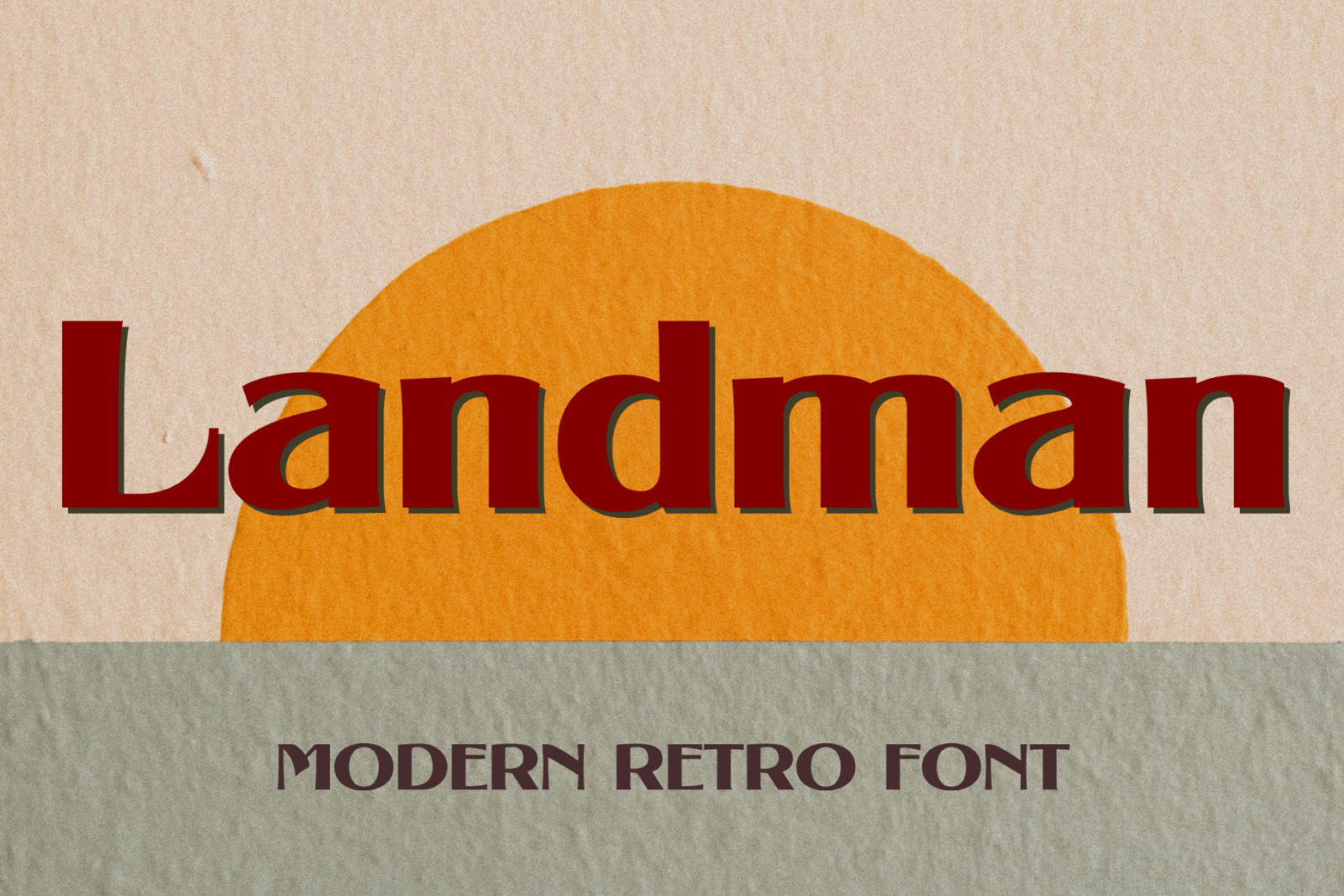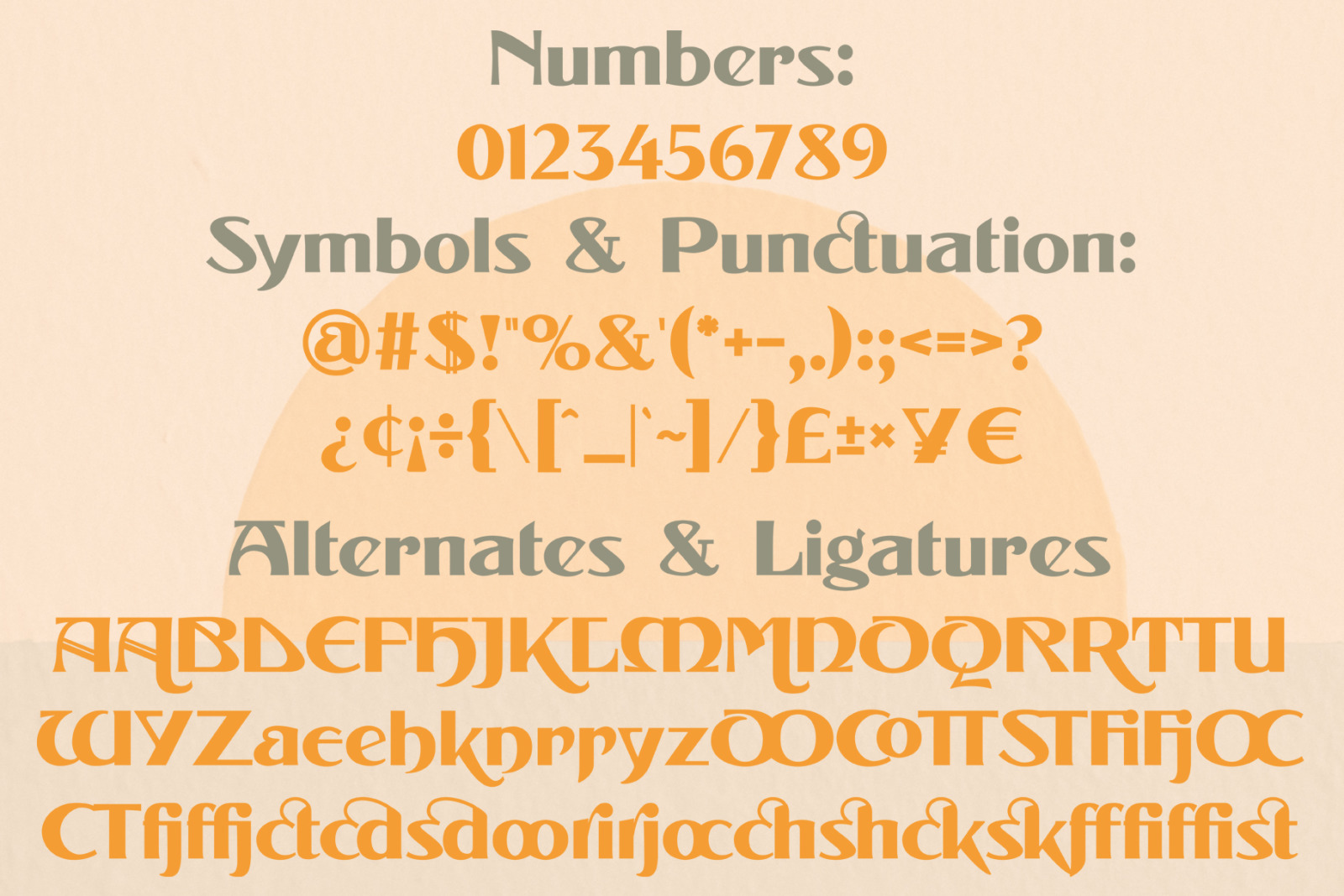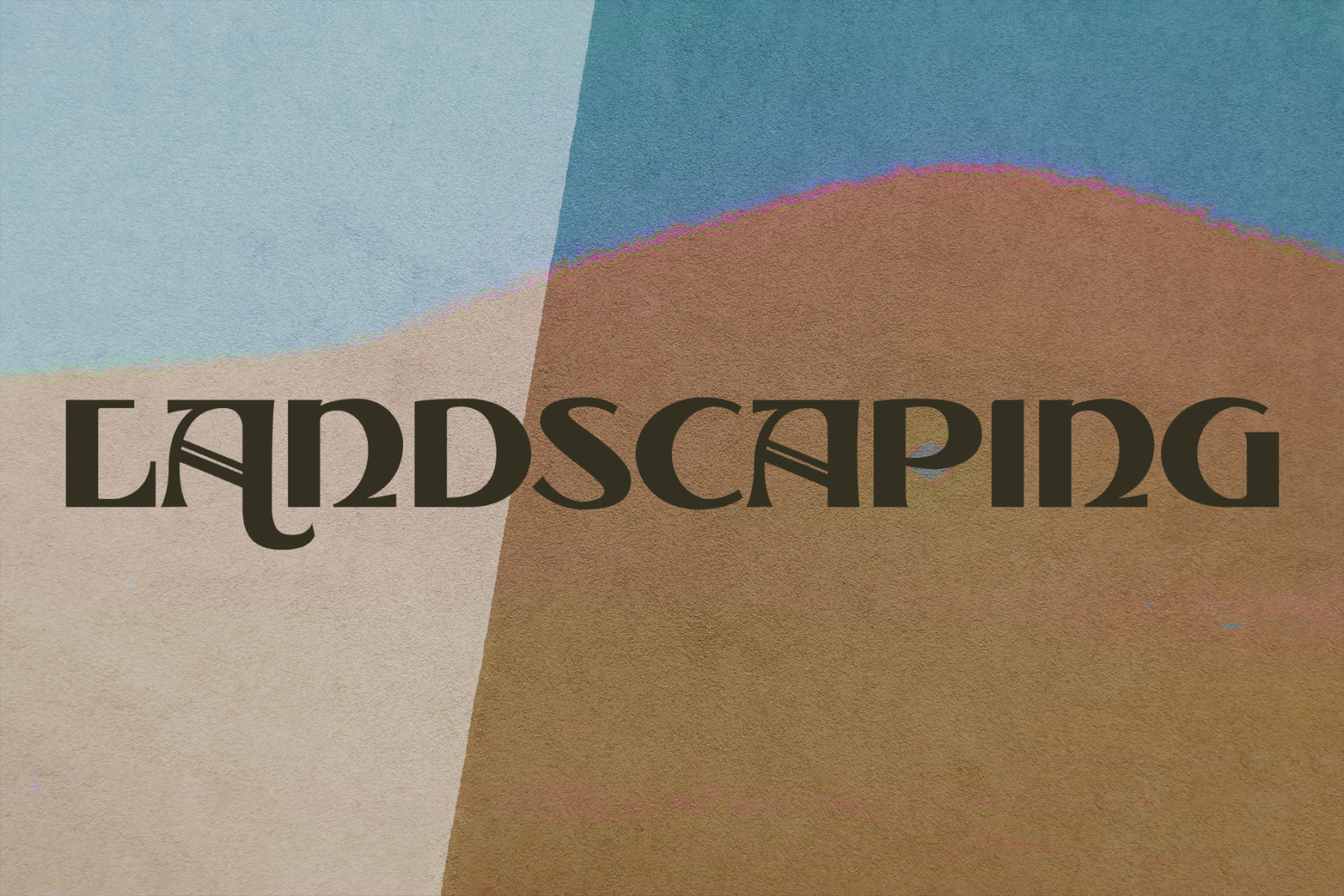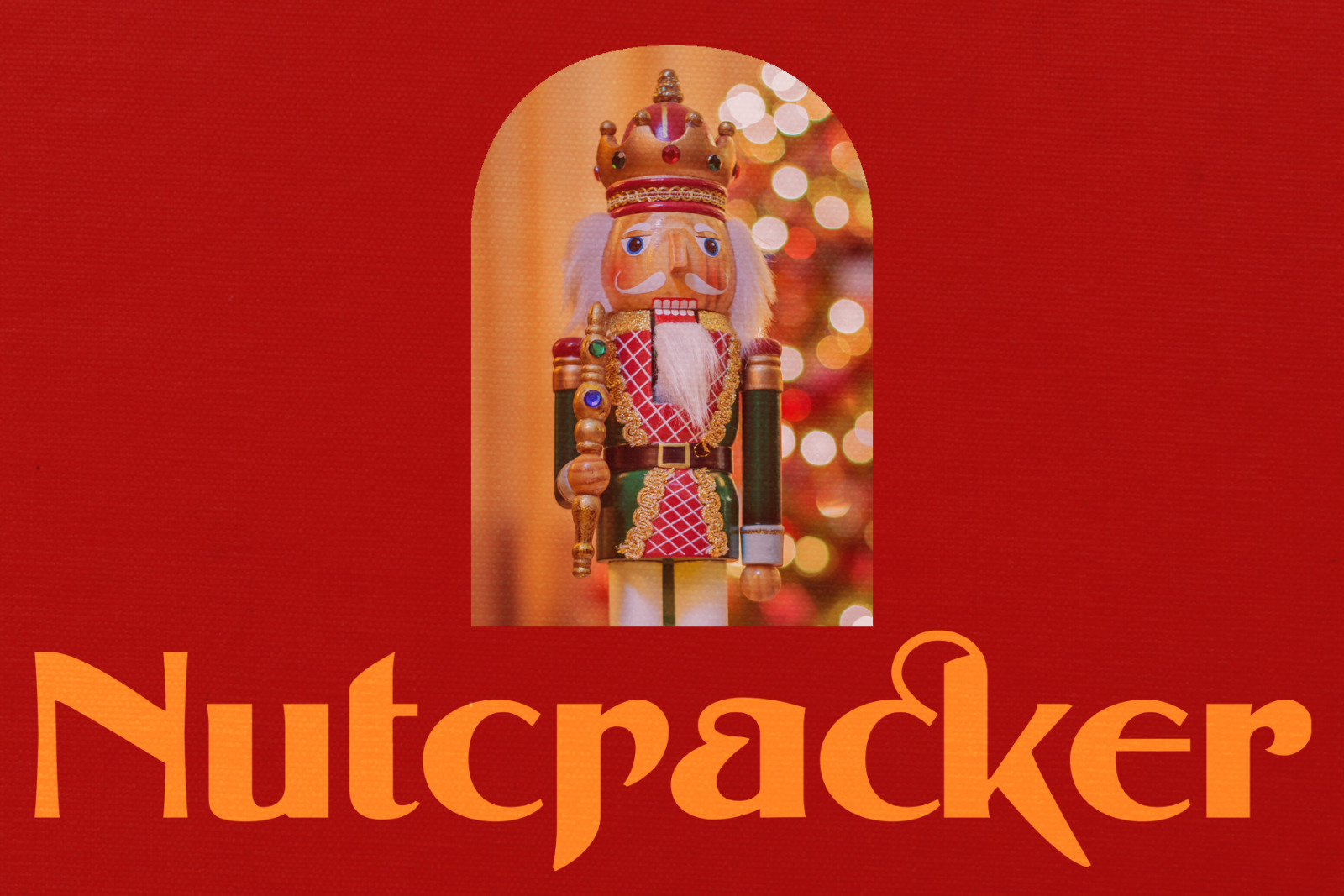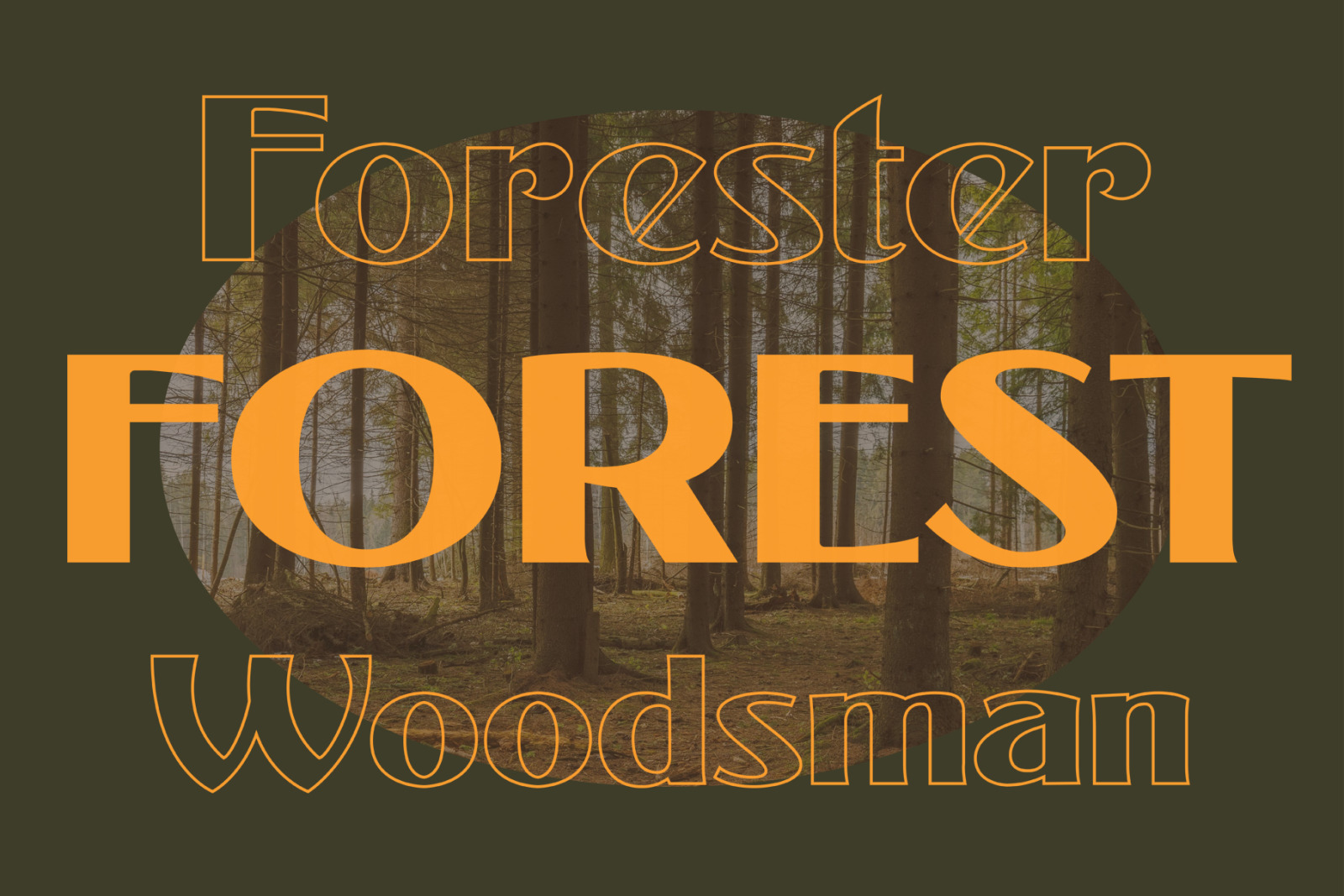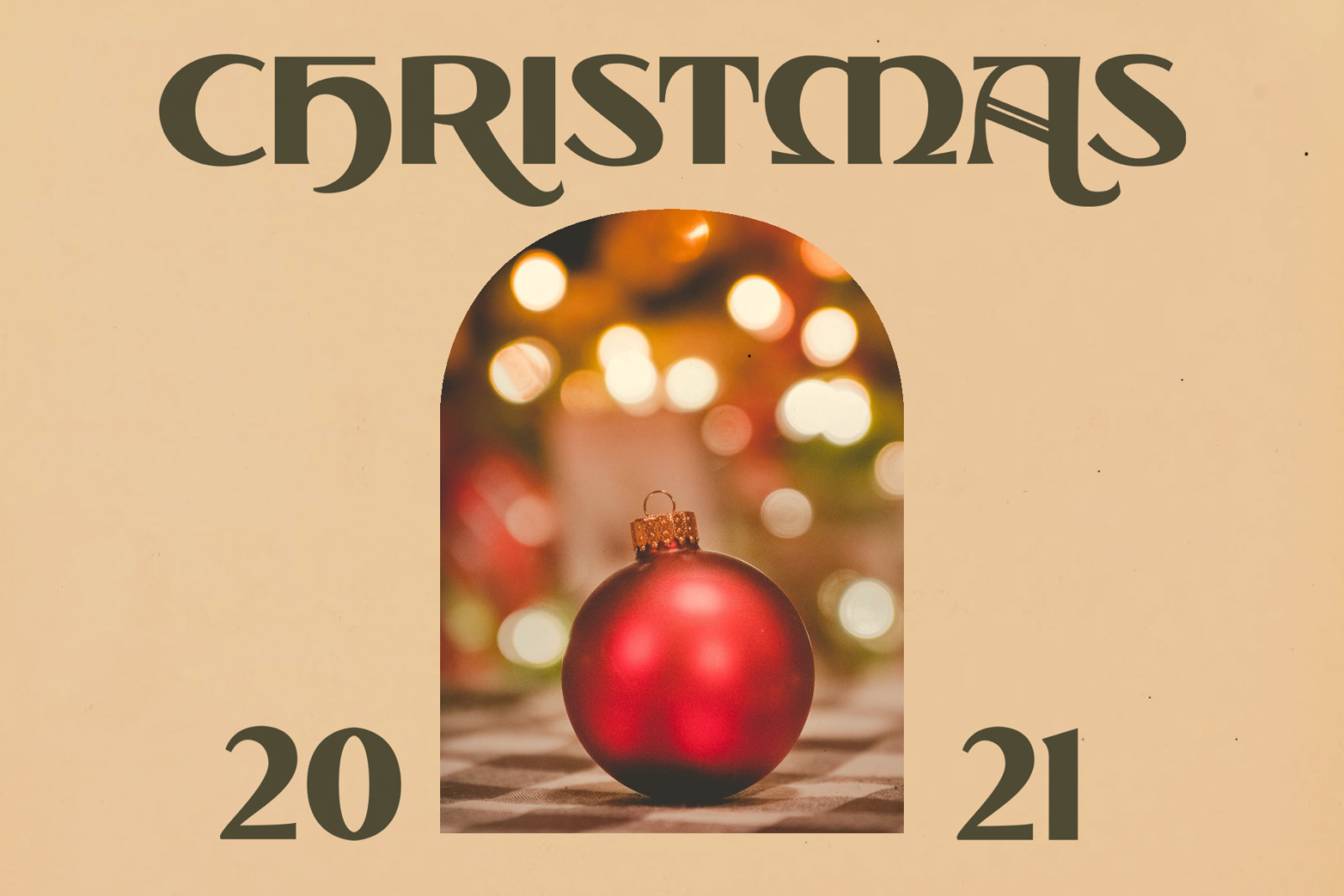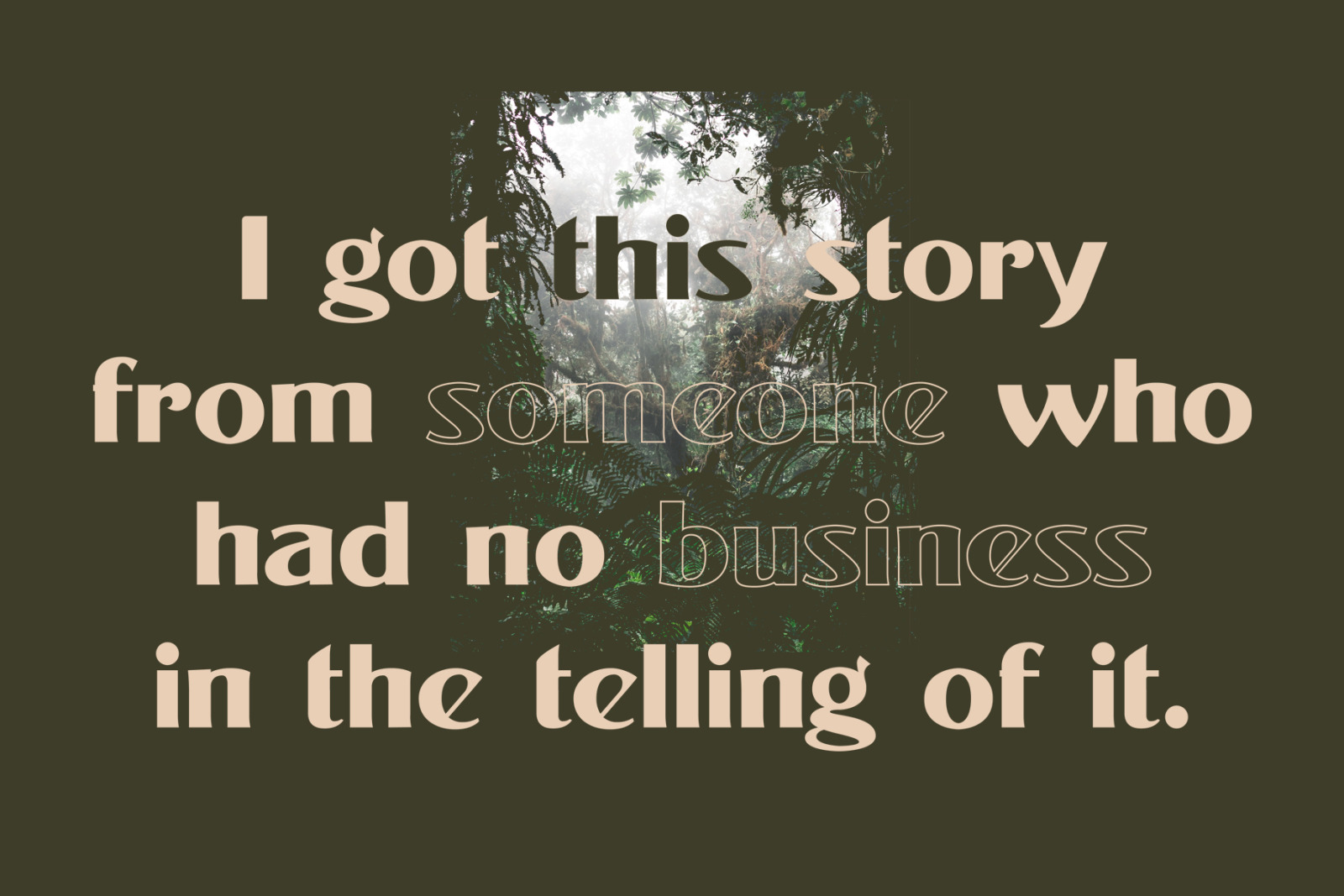
Landman Font
Landman is a retro font inspired by Murillo/Aldo Manutio typefaces designed by Schelter & Giesecke in 1897. My revision enriches this font with a few minor modern accents, alternate letters and ligatures. Landman is great for headers, posters, brandings, labels and more. Enjoy!
Language support:
ÀÁÂÃÄÅĀĄÆ ÇĆ ÈÉÊËĘĒ ÌÍ Î Ï Ī Ð Ł ŃÑ ÒÓÔÕÖŒØ Ś ÙÚÛÜ ỲÝŶŸ Þ ß
àáâãäåāąæ çć èéêëęē ìí î ï ī ð ł ńñ òóôõöœø ś ùúûü ỳýŷÿ þ